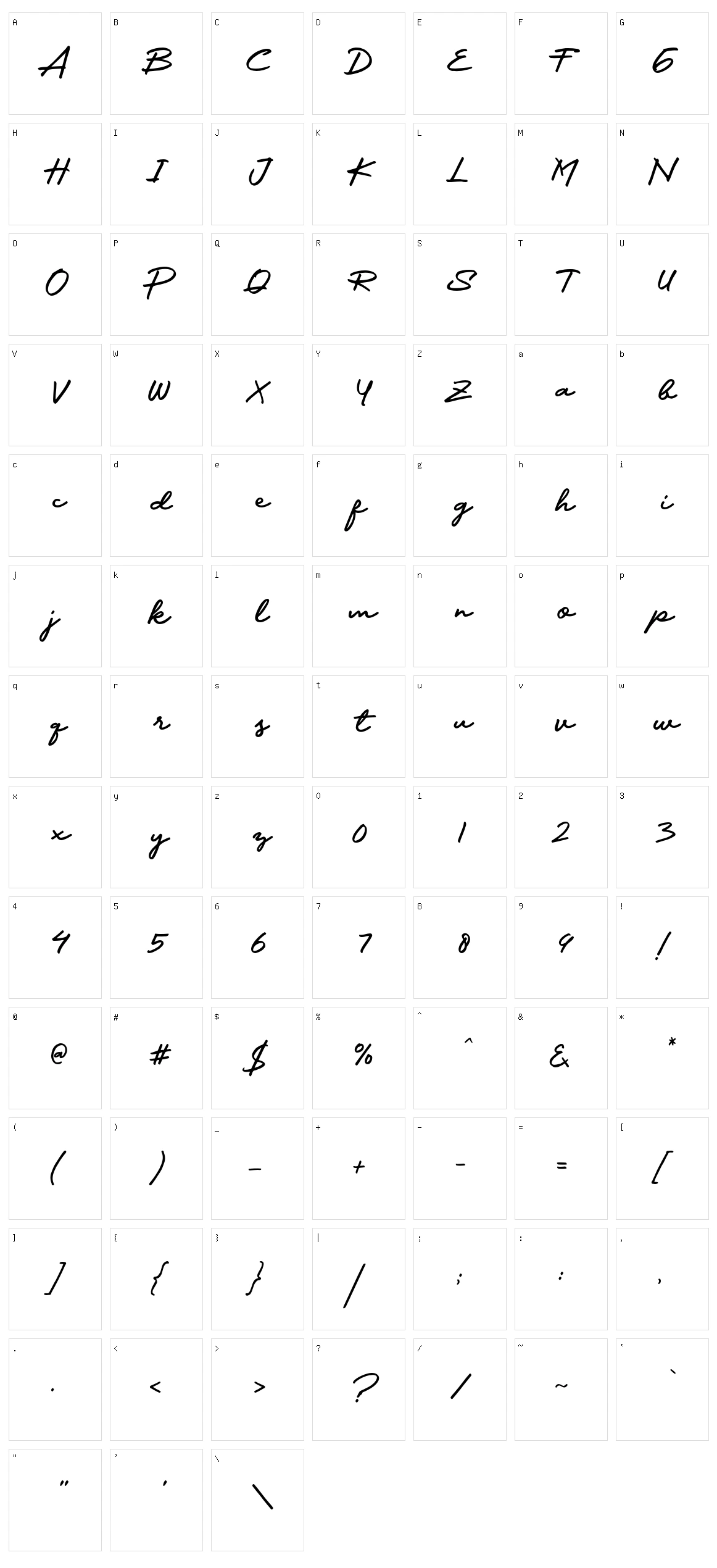
The free font Spidol is carefully designed by Kong Font, showcasing a thoughtful balance of creativity and usability and falls under the Script font style. When you download the ZIP file, it contains only 44.83 KB of font files, making it lightweight and quick to download. Please review the license details below to understand permitted usage and distribution rights. If license information is not available, we recommend using this font for personal projects only or contacting the author directly for commercial usage permissions.